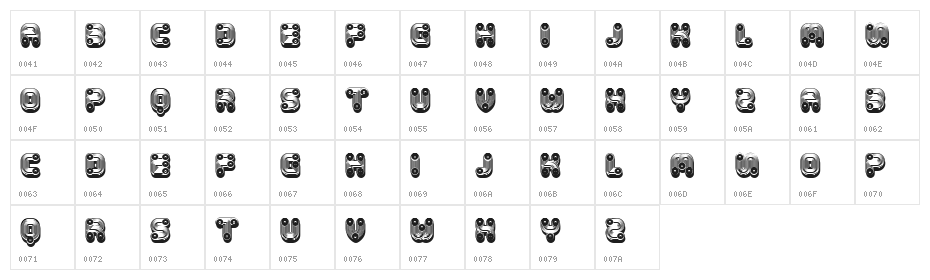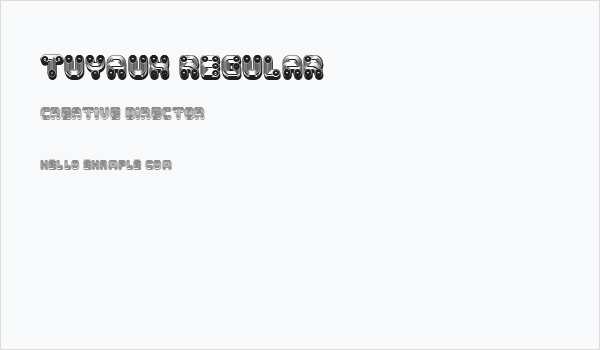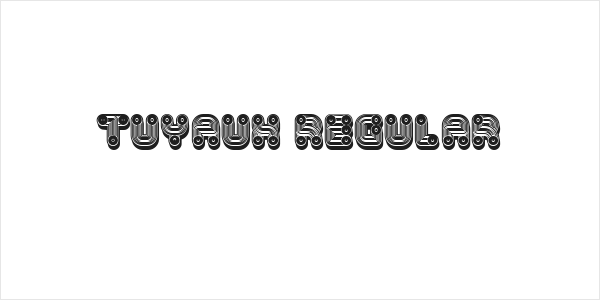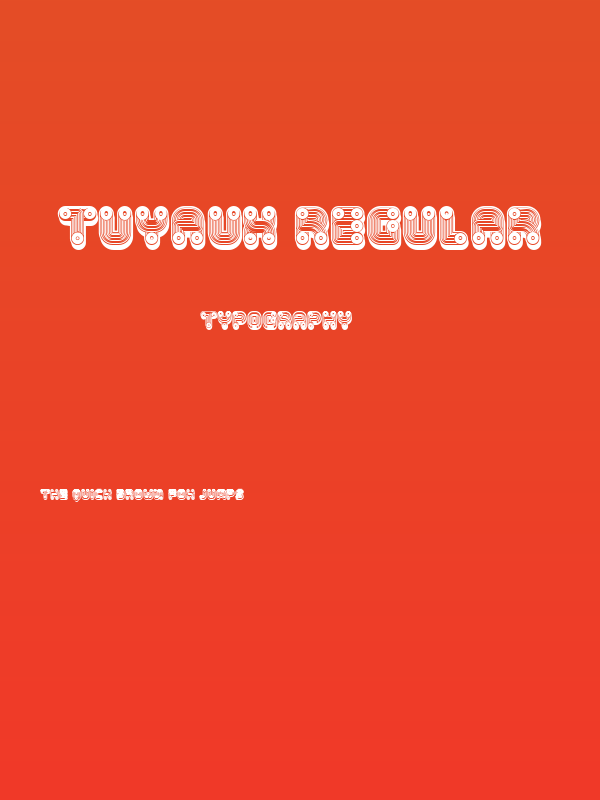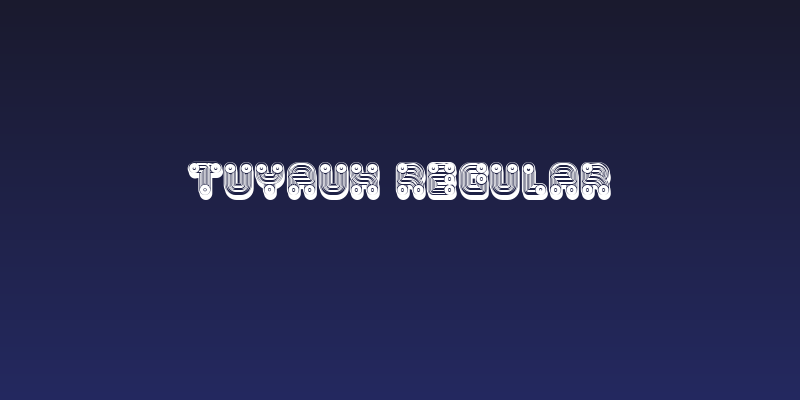
Tuyaux Regular Font
Tuyaux Regular Description
This font features a bold and intricate design with a unique, layered appearance. Each character is composed of multiple concentric lines, creating a sense of depth and complexity. The rounded edges and circular motifs within the letters give it a playful yet sophisticated look. The font maintains a consistent thickness throughout, with each character exhibiting a harmonious balance between its elements. The overall design is eye-catching and suitable for projects that require a standout typographic element. Its decorative style makes it ideal for creative and artistic applications.
| Proposed Projects | Ideal for posters, album covers, branding, and any project requiring a bold, artistic statement. |